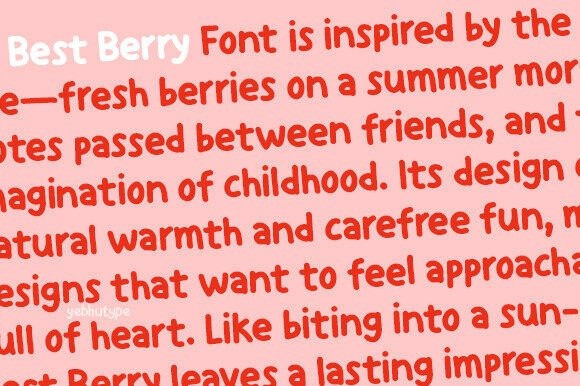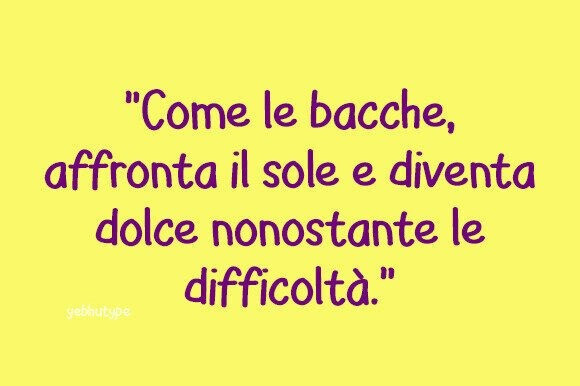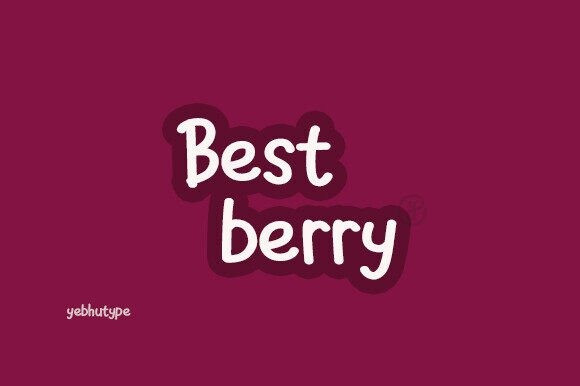
Best Berry Font
Best Berry Font, a delightful handwritten typeface that captures the sweetness of childhood and the joy of playful design. With its soft, rounded letterforms and cheerful energy, Best Berry adds a touch of charm and warmth to every project. Whether you’re designing for young audiences or simply want to infuse your work with a fresh, friendly feel, BestBerry is the perfect choice to make your words bloom with personality.